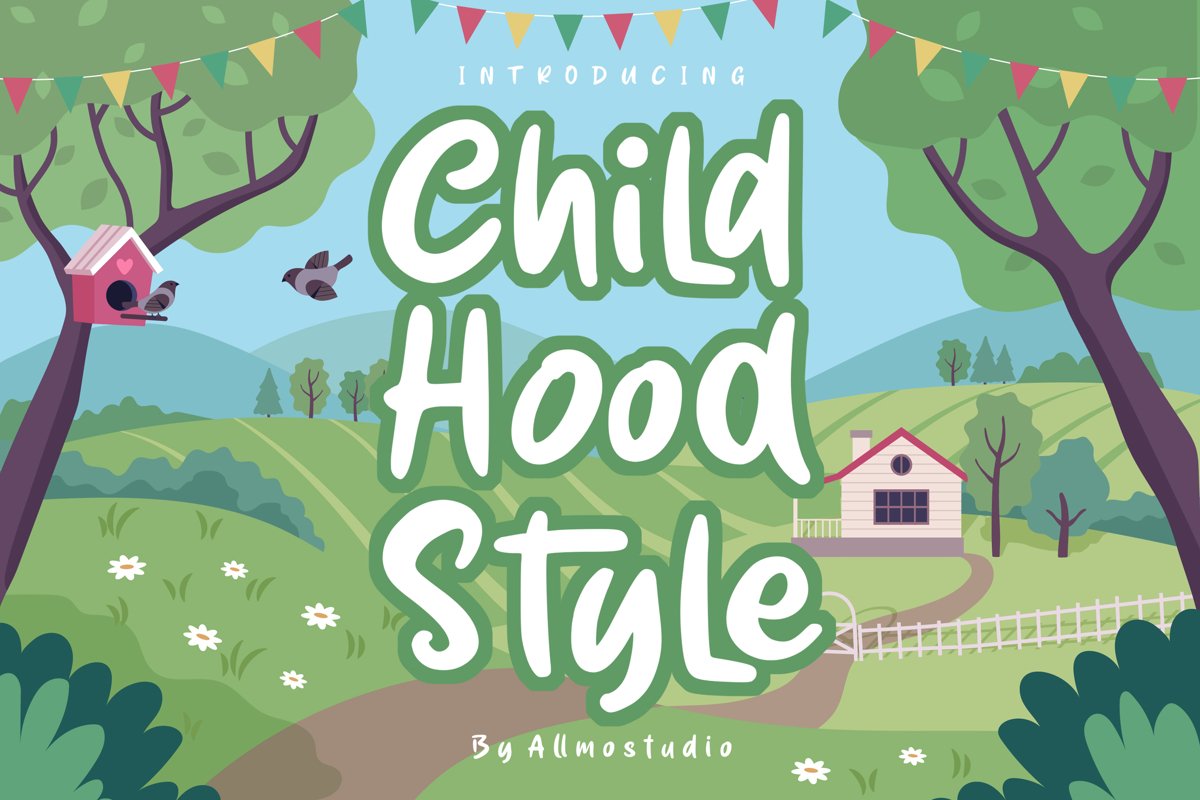
Childhood Style is a cute and fun handwritten font!
This font is perfect for quotes, shirt designs, websites, branding, children's designs,
svg designs, blogs, logos, invitations and more!
Childhood Style comes with uppercase, lowercase, numerals,
punctuations and so many variations on each characters include opentype alternates and Ligatures.